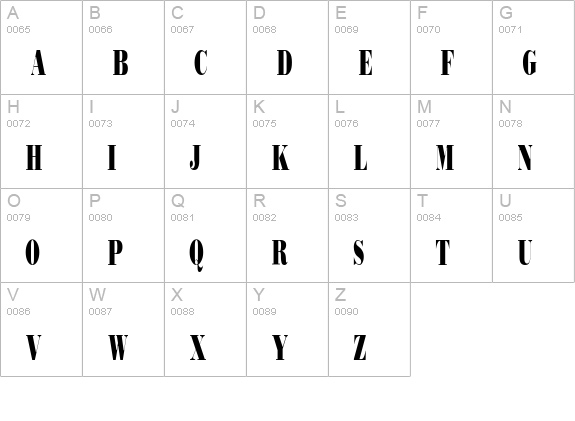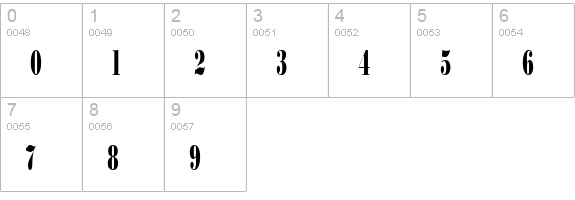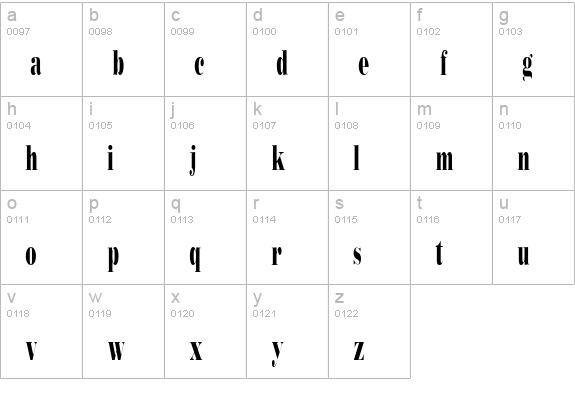
Bodidly-Condens font is a sleek and modern typeface that exudes sophistication and elegance. With its condensed and bold design, this font is perfect for creating eye-catching headlines, titles, and branding materials. The sharp lines and distinct curves of Bodidly-Condens give any project a polished and professional look. What sets Bodidly-Condens font apart is that it is not only stylish and versatile but also available for free download at FontsMarket.com. This means that you can easily access and use this high-quality font for all your design needs without any cost. Whether you're working on a logo, website, poster, or any other project, Bodidly-Condens font is sure to make a bold statement and leave a lasting impression. Download it today and elevate your designs with this exceptional typeface.